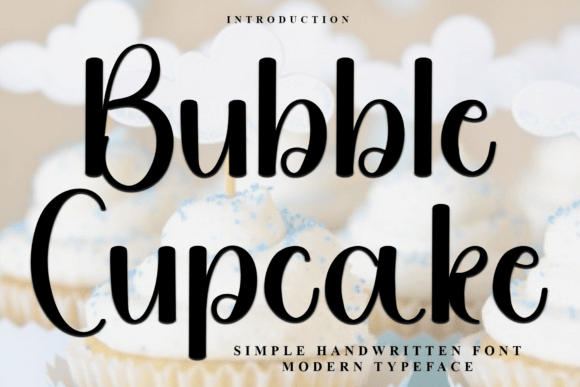
The Sweet Spot: Discovering the Charm of Bubble Cupcake Font
I’ll never forget the time I was working on a whimsical craft project, searching for the perfect font to match my design. My client wanted something playful, yet elegant, and I was determined to deliver. That’s when I stumbled upon the Bubble Cupcake font. Its unique, soft touch immediately caught my eye, and I knew I had found the one. In this article, I’ll share my experience with this beautiful font, its features, and how to make the most of it in your designs.
A First Impression: What Makes Bubble Cupcake Special
Bubble Cupcake is more than just a font – it’s a design statement. Its distinctive strokes give it a special character, making it both meaningful and versatile. With a wide range of characters, this font is perfect for various design projects, crafts, and creative works. Whether you’re a designer, crafter, or hobbyist, Bubble Cupcake is sure to enhance your designs and appeal to a broad audience.
Here’s what I love about Bubble Cupcake:
• ✨ Unique and eye-catching design
• ✅ Soft and elegant touch
• 🌈 Wide range of characters and glyphs
While Bubble Cupcake is an excellent font, it’s not without its quirks.
• 🤔 Some characters may require adjustments for optimal spacing
• ⚠️ Limited availability of certain special characters
The Story Behind Bubble Cupcake: A Designer Inspiration
According to its creators, Bubble Cupcake was inspired by the whimsical world of desserts. The font’s unique design is meant to evoke the feeling of indulging in a sweet treat. While the actual story behind the font may be fictional, its charm and character are undeniable.